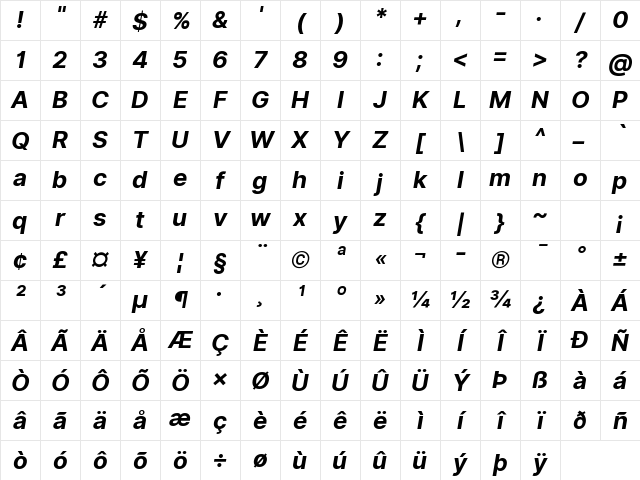
Inter UI Bold Italic
Foundry: rsms
Designer: Rasmus Andersson
Complete Inter UI Bold Italic glyph index. Displaying only characters natively supported by Inter UI Bold Italic font.
Design Context for Inter UI
Inter UI is a composed and adaptable typeface that performs quietly and consistently across a wide range of design contexts. The slanted form adds forward momentum and visual energy. Its bold stroke weight gives it real presence on the page.
Pro Tip: Use Inter UI for emphasis, pull quotes, and subheadings where its slanted energy can add rhythm to the layout.